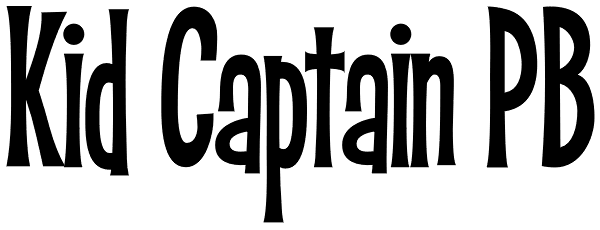
Kid Captain PB
A spunky slim typeface inspired by a 1958 Dell Comic, The Captain and the Kids featuring the Katzenjammer Kids as a spinoff from the original comic which was in turn inspired by the famous children's story from the 1860's, Max and Moritz. Fun...